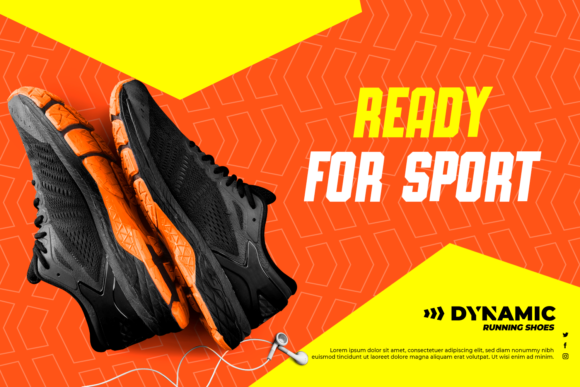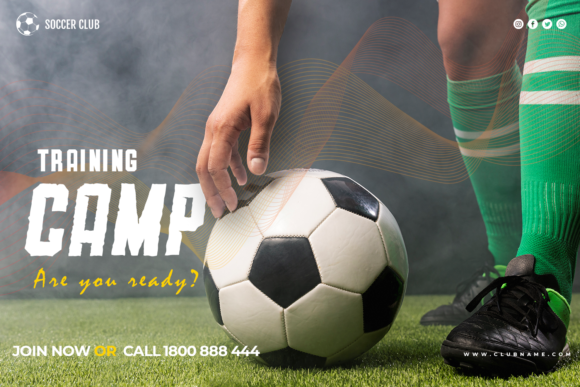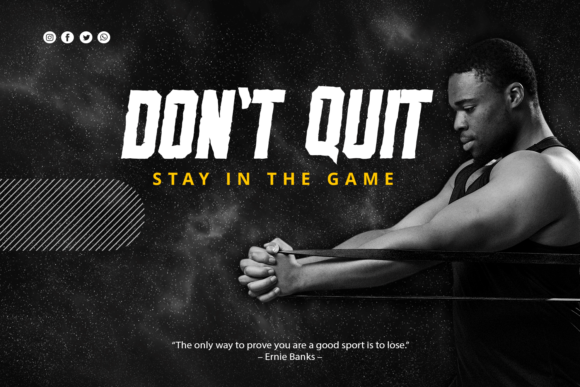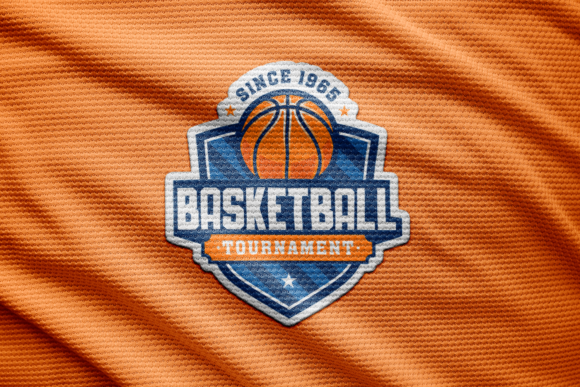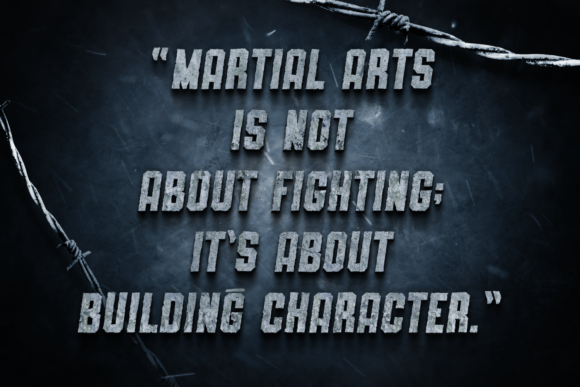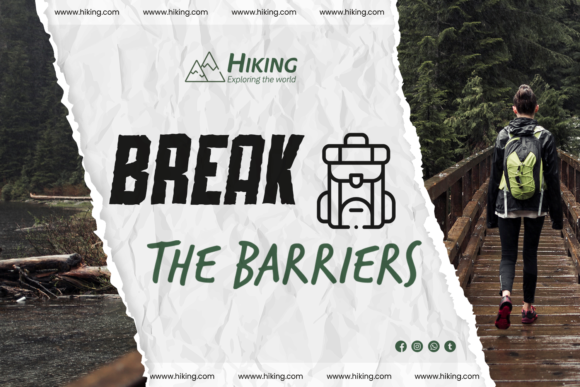
Introduction to Slimedunk Font
Have you ever stared at a blank canvas, eager to bring a new idea to life, only to be held back by the perfect font to match your vision? I know I have. It’s that moment of frustration when you need a design resource that’s not only high quality but also versatile enough to fit your creative project.
Enter the Slimedunk Font, a bold and classic sans serif font that’s about to become your new go-to design companion. With its sleek lines and transparent background, this font is perfect for E-sport logos, film posters, games, sports, and any other project where you want to make a statement.
As a designer, you know how valuable it is to have access to a reliable and free download font that can elevate your design to the next level. The Slimedunk Font is that game-changer, offering a unique blend of style and functionality that’s sure to make your projects stand out.
Key Features of Slimedunk Font
• Unique, hand-drawn design with a playful and fun feel, making it perfect for creative projects.
• High-quality font with transparent background, allowing for seamless integration into designs.
• Includes 100+ glyphs, including uppercase and lowercase letters, numbers, and special characters.
• Designed to work well at various resolutions and sizes, from small text to large headings.
• Perfect for use in creative projects such as logos, branding, packaging, and advertising, where a unique and playful feel is desired.
Honest Review: Slimedunk Font
I recently had the chance to work with the Slimedunk Font, and I must say it’s a fantastic addition to any creative project. The high quality of this font is immediately apparent, with clean lines and a unique style that sets it apart from other fonts.
• What works well:
• ✨ Unique and playful style that adds a touch of personality to any design.
• ✨ Clear and legible, making it perfect for body text or headings.
One of the standout features of the Slimedunk Font is its transparent background, which makes it easy to layer and composite with other design elements. This is a huge time-saver for designers, and it’s a great example of how the font is designed with usability in mind.
• Limitations:
• ⚠️ Limited character set, which may not be ideal for projects that require a wide range of characters.
Getting the Most Out of Slimedunk Font
For the best results, pair the Slimedunk Font with a transparent background and high-quality images. This will create a visually appealing design that stands out. Experiment with different font sizes, colors, and styles to find the perfect combination for your creative project.
The Slimedunk Font is suitable for various design projects, including logos, brochures, posters, and social media graphics. Its unique design and high-quality features make it an ideal choice for creative professionals and individuals looking for a free design resource.